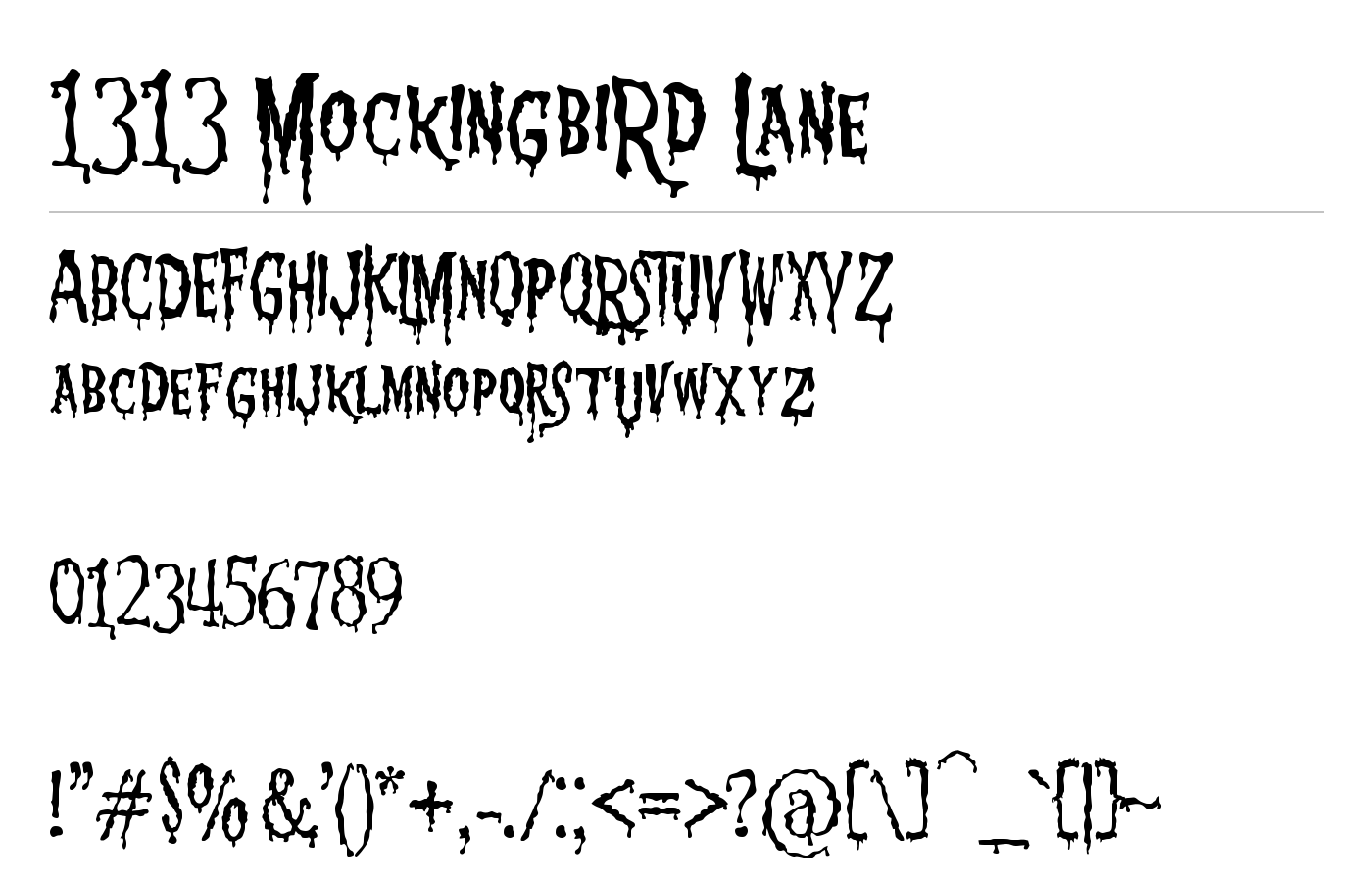
1313 MockingbiRd Lane is a spooky, decorative serif font with a dripping, irregular stroke style that evokes a horror or Halloween theme. Its tall, narrow letterforms with uneven edges and rough texture create a playful yet eerie vibe, making it perfect for themed posters, party invitations, and eye-catching headlines. This font suits designs that want to convey a creepy, haunted atmosphere with a distinctive character.
1313 MockingbiRd Lane Font